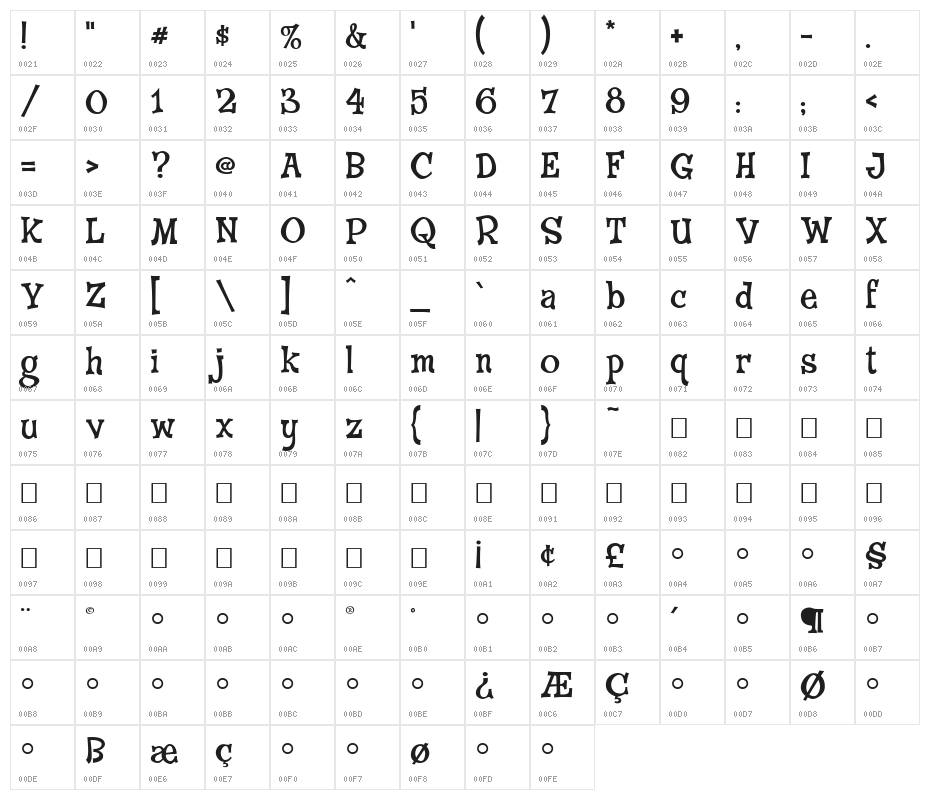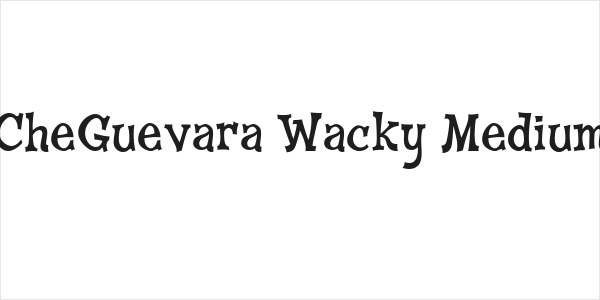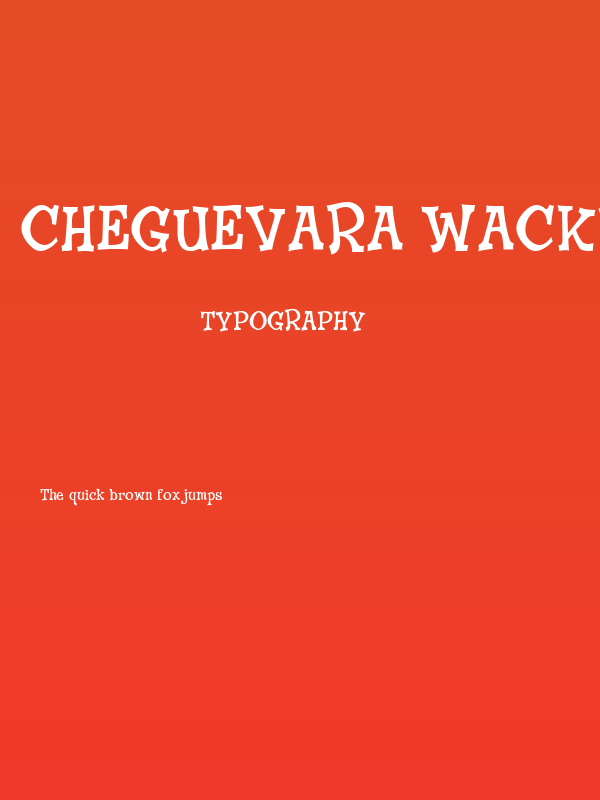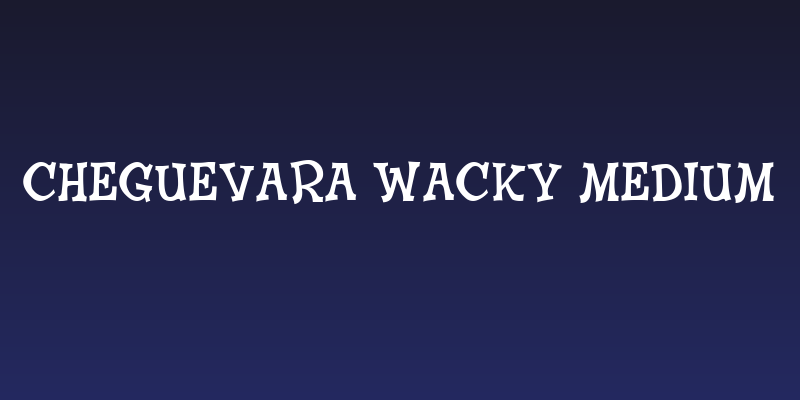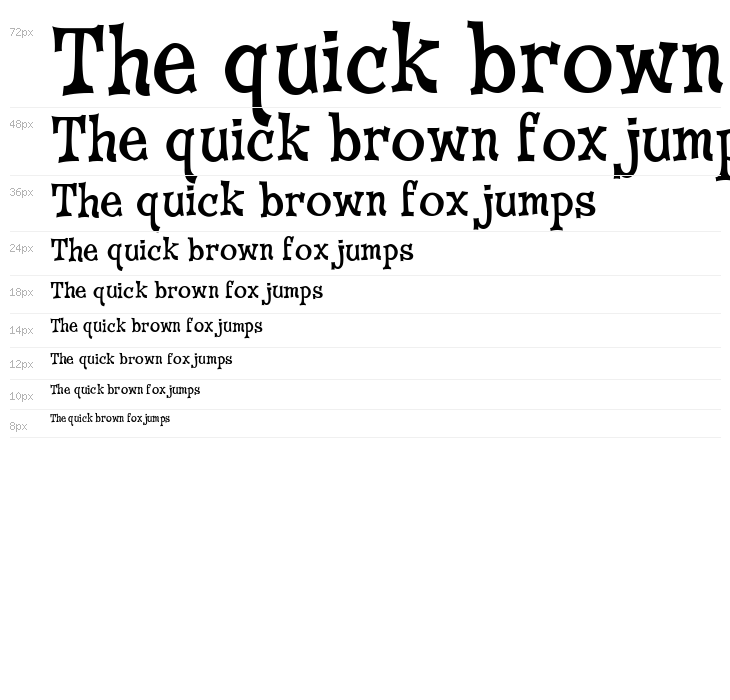
CheGuevara Wacky Medium Font
CheGuevara Wacky Medium Description
This font features a playful and quirky design with exaggerated curves and uneven strokes, giving it a whimsical and dynamic appearance. The uppercase letters are bold and slightly irregular, while the lowercase letters maintain a consistent yet lively style. The numerals are distinct and follow the same playful theme, making them stand out. Special characters are creatively designed, adding to the font's unique personality. Overall, this font exudes a sense of fun and creativity, making it suitable for projects that require a touch of humor and individuality.
| Proposed Projects | Ideal for children's books, playful branding, creative posters, and fun invitations. |